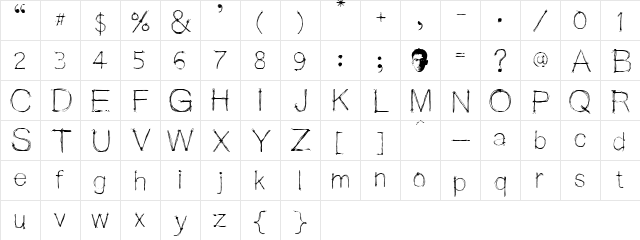
Saji Johnny Kundukulam Regular
Design Context for Saji Johnny Kundukulam Typeface
Saji Johnny Kundukulam takes a measured approach to typography — its balanced proportions and neutral character make it a reliable workhorse for both digital and print work.